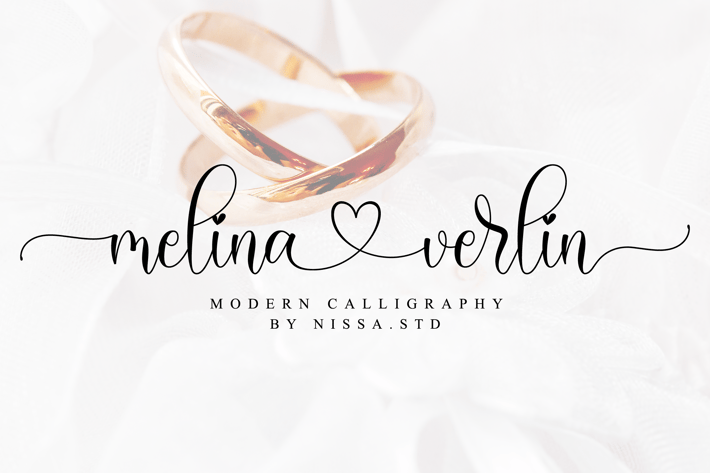
Melinaverlin - A Lovely Script Font
Melina Verlin is a beautiful combination of timeless elegance and authentic calligraphy. It features an incredibly classic style, while still keeping a friendly feel. Melina Verlin is the perfect font for making original and outstanding designs for wedding invitations, beautiful stationary art, eye-catching social media posts, and cute greeting cards.
Modern Handwritten Font
Beautiful Swash (Ending tail)
Beautiful Titling (Beginning tail)
Special Ligatures